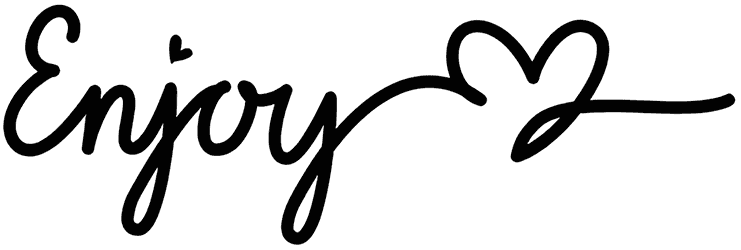
Enjoy is a script font with calligraphy and broken letters that can leave a good visual impact on the viewer. This heart font has swirls that give a different beauty to the connection between letters and word endings.
It also hides a human feeling inside and doesn’t follow any specific pattern. This independent nature makes it perfect for highlighting signatures, wedding cards, and anything that needs a bit of originality and elegance.